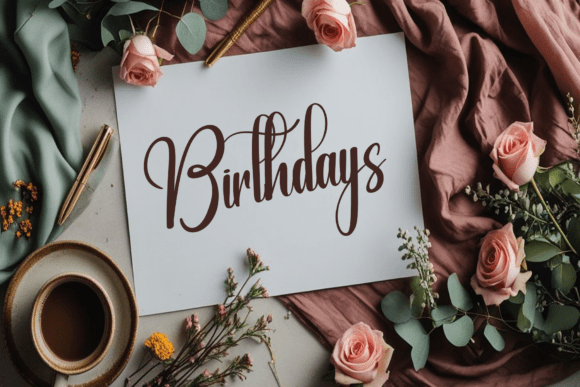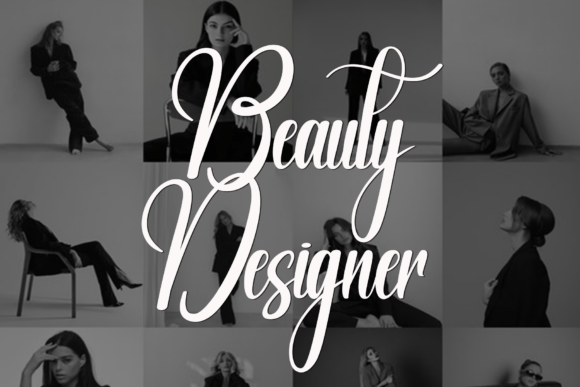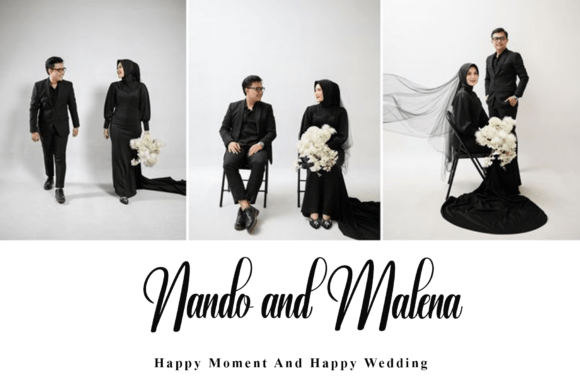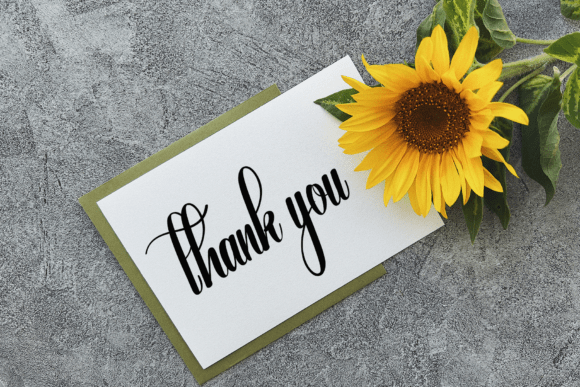
The Perfect Script Font for Your Next Creative Project
Have you ever stared at a blank page, searching for the perfect font to capture the essence of your idea? For designers, finding that one special font can be a game-changer. It’s the moment when everything comes together – the style, the tone, and the message. For me, that moment happened when I discovered the Amaliya Font.
This beautifully flowing script font radiates charm and sophistication, making it perfect for wedding invitations, personal branding, elegant packaging, and romantic quotes. With smooth curves and a handwritten feel, the Amaliya Font is an ideal choice for designers looking to add a touch of elegance to their projects. Its versatility and timeless appeal make it a valuable addition to any designer’s toolkit.
Whether you’re working on a high-end branding project or a romantic wedding invitation, the Amaliya Font is sure to impress. Its beauty lies in its simplicity, making it a go-to choice for designers who want to create something truly special.
Amaliya Font Key Features
- Font Style: Script, Calligraphy
- Unique Characteristics: Elegant, flowing script with subtle flourishes and connections between letters
Amaliya Font Review
Overall, I’m quite impressed with the Amaliya font. ✨ Its unique blend of elegance and modernity makes it a great choice for a wide range of projects.
- Beautiful letterforms: The Amaliya font features beautiful, flowing letterforms that are perfect for creating a sophisticated and refined look.
- Highly legible: Despite its elegant appearance, the Amaliya font is surprisingly easy to read, even at smaller font sizes.
- Great for body text: The Amaliya font works well for body text, making it a great choice for long-form content and articles.
- Not ideal for headings: While the Amaliya font is great for body text, it may not be the best choice for headings, as it can be a bit too subtle.
- Lack of bold weights: The Amaliya font only comes in a few bold weights, which can limit its versatility.
- May not be suitable for digital displays: The Amaliya font may not be optimized for digital displays, which can result in a slightly fuzzy or distorted appearance.
Overall, I think the Amaliya font is a great choice for designers who want to create a sophisticated and elegant look. While it may have some limitations, it’s definitely worth considering for your next project.
Tips for Getting the Most Out of Amaliya Font
Use Amaliya Font for elegant and sophisticated designs.
Combine it with high-contrast colors to create a striking visual effect.
Experiment with different font sizes and styles to add depth and visual interest.
Alternatives to Amaliya Font for Designers
Great Vibes Font is a beautiful, elegant script font ideal for wedding invitations, greeting cards, and other creative projects. It features a flowing, handwritten style that evokes a sense of sophistication and romance.
Compared to Amaliya Font, Great Vibes Font has a more refined and delicate appearance. While Amaliya Font is bold and eye-catching, Great Vibes Font is perfect for those who want a more subtle and elegant look.
Carolyna Pro Font is a modern, sophisticated script font designed for use in fashion, beauty, and lifestyle brands. It features a bold, elegant style with a touch of whimsy, making it perfect for logos, packaging, and advertising.
Compared to Amaliya Font, Carolyna Pro Font has a more modern and edgy appearance. While Amaliya Font is classic and timeless, Carolyna Pro Font is ideal for those who want a more contemporary and fashion-forward look.
Alex Brush Font is a beautiful, handwritten script font ideal for use in creative projects, such as invitations, menus, and posters. It features a flowing, brush-stroke style that adds a touch of warmth and personality to any design.